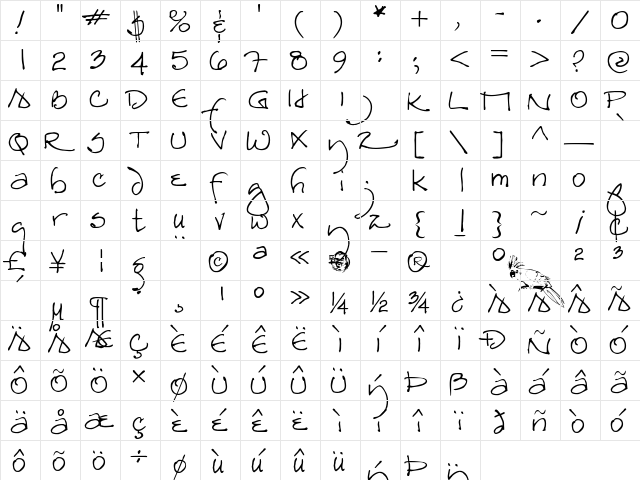
Redstar Regular
Design Context for Redstar Typeface
Redstar is a composed and adaptable typeface that performs quietly and consistently across a wide range of design contexts.